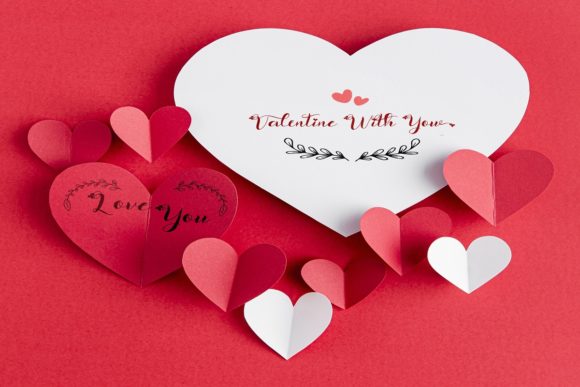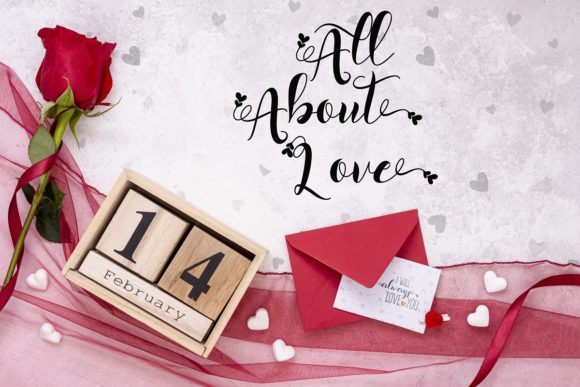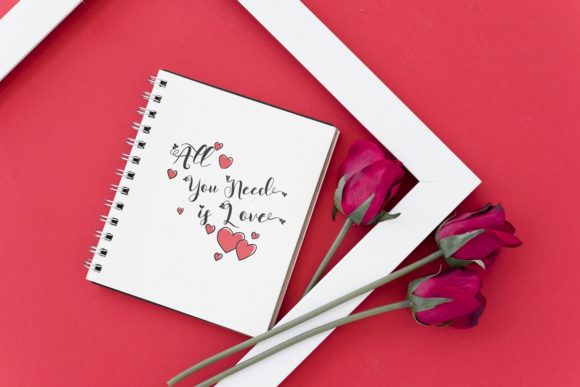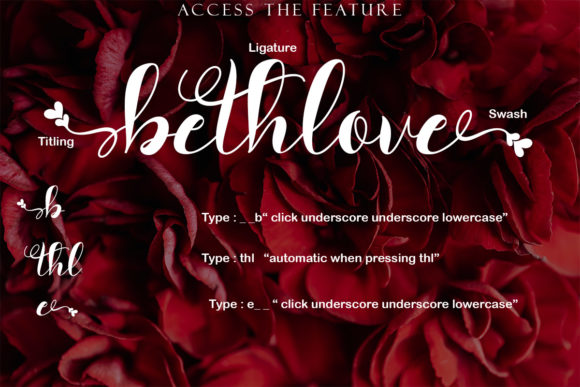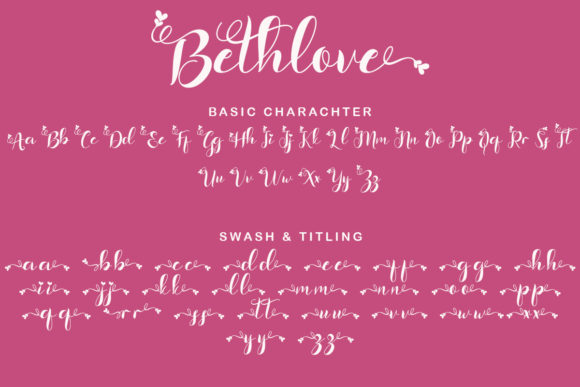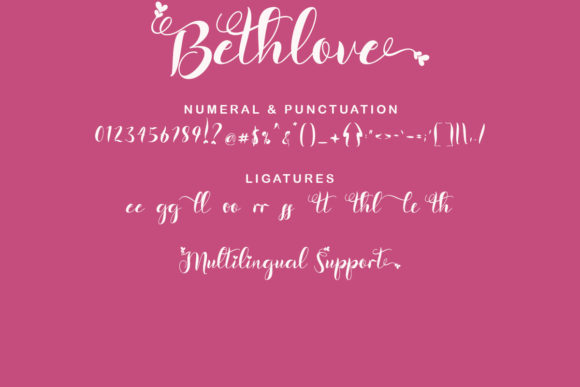
The Perfect Script for Your Heartfelt Messages
Have you ever been so in love with a font that you couldn’t wait to use it in your next design project? That’s exactly what happens when you fall for the Bethlove Font. This beautiful script font is designed to convey emotions and add a touch of romance to your creations.
With its unique letters and stunning heart-shaped swash, Bethlove Font is perfect for expressing love and affection. Whether you’re designing Valentine’s Day cards, wedding invitations, or social media updates, this font is sure to make your message stand out. As a designer, you’ll appreciate the ease of use and versatility of Bethlove Font, which is PUA encoded for seamless access to its beautiful glyphs and swashes.
Bethlove Font Key Features
- Font Family: Bethlove, Bethlove Italic, Bethlove Bold, Bethlove Bold Italic
- Unique Characteristics: Bethlove features a unique, hand-drawn style with intricate details and ornate flourishes, making it ideal for formal and elegant designs.
Bethlove Font Review
Overall, I’m quite impressed with the Bethlove Font. It’s a beautiful, elegant script font that works well for various design projects. Here are some of its standout features:
- ✨ Elegant and refined design that adds a touch of sophistication to any project
- ✨ Highly legible, making it suitable for body text and titles
- ✨ Excellent for creative projects like wedding invitations, quotes, and more
However, like any font, Bethlove has its limitations:
- ⚠️ Not ideal for very large font sizes, as it may become too ornate
- ⚠️ Limited language support, which may be a concern for multilingual designs
Overall, I think the Bethlove Font is a great addition to any designer’s toolkit. Its unique design and excellent legibility make it a great choice for various projects. While it may have some limitations, I believe they are outweighed by its many benefits. If you’re looking for a elegant, refined script font, I’d definitely recommend giving Bethlove a try.
Use Bethlove Font for creative, elegant, and sophisticated designs. It pairs well with bold and bright colors.
Experiment with different font sizes and styles to create visual interest and emphasis.
Bethlove Font is suitable for:
- Formal event promotions
- High-end branding and marketing materials
Alternatives to Bethlove Font
The Great Vibes Font is a modern, elegant script font designed by Handmade-Type. It’s ideal for use in branding, advertising, and editorial content where a sophisticated and stylish feel is desired.
Comparison to Bethlove Font: Great Vibes Font has a more refined and polished look, making it suitable for formal and high-end applications. Bethlove Font, on the other hand, has a more playful and whimsical feel, making it better suited for casual and creative projects.
The Carolyna Pro Font is a modern, cursive script font designed by Laura Worthington. It’s perfect for use in branding, packaging, and digital content where a friendly and approachable feel is desired.
Comparison to Bethlove Font: Carolyna Pro Font has a softer and more delicate look, making it suitable for applications where a gentle and inviting feel is desired. Bethlove Font, on the other hand, has a bolder and more expressive feel, making it better suited for projects that require a stronger emotional connection.
The Alex Brush Font is a elegant, handwritten script font designed by Pizzazz. It’s ideal for use in branding, advertising, and editorial content where a sophisticated and artistic feel is desired.
Comparison to Bethlove Font: Alex Brush Font has a more refined and polished look, making it suitable for formal and high-end applications. Bethlove Font, on the other hand, has a more playful and whimsical feel, making it better suited for casual and creative projects.